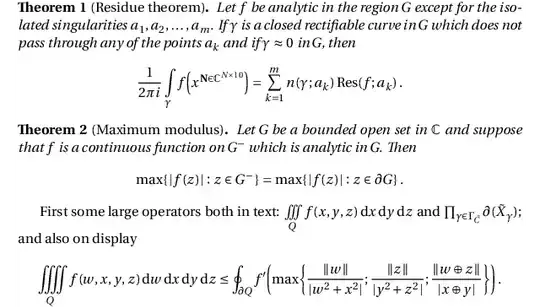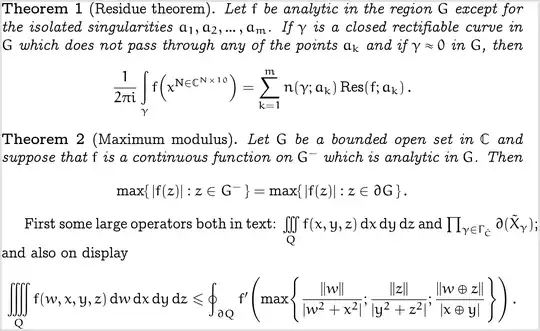
What OpenType math fonts are there available for usage in TeX/LaTeX, e.g. with the unicode-math package?
Here is a MWE which you can use to show off the font.
Here is a similar MWE for ConTeXt. The images in the answer will only be shown for LaTeX output but the ConTeXt output looks very similar.
superb effort -- added to "often referenced questions" in meta. comment on tex gyre fonts -- the limits are awfully close to the sum, except for latin modern; i suppose this should be reported to the developers. – barbara beeton Apr 06 '18 at 15:44
@barbarabeeton also there is glyph collision of f with | in |f(z)| in all four of TeX Gyre {Termes,Pagella,Schola,Bonum} Math. (and near glyph collision of again the f with the subscripted Q in bottom display, possibly because the multiple integrals look definitely text and not display style in thsse math fonts) –  Apr 10 '18 at 14:31
One can adjust the DisplayOperatorMinHeight font parameter using \everydisplay{\Umathoperatorsize\displaystyle=4ex} as explained in this answer, to get longer integrals for TeX Gyre fonts. tex gyre